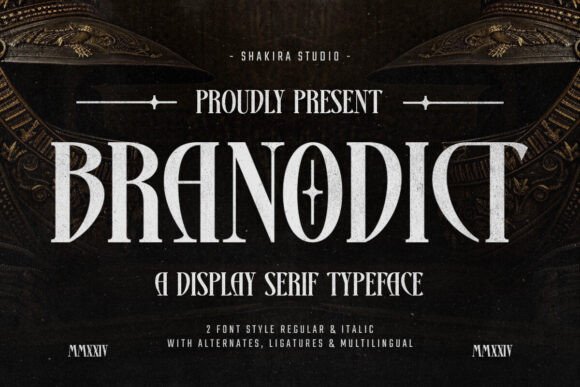
The Power of Branodict: Elevate Your Brand with a Modern Display Serif Font
I’ll never forget the struggle I faced while working on a branding project for a luxury fashion client. The goal was to create a logo that exuded elegance, sophistication, and a touch of modernity. As I scrolled through countless font options, I felt like I was stuck in a never-ending loop of sameness. That was until I stumbled upon Branodict, a game-changing display serif font that instantly captured the essence of my client’s vision.
A First Impression: What Makes Branodict Special
Branodict is more than just a font – it’s a statement piece. This commanding display serif merges contemporary sharpness with classic elegance, making it perfect for creating striking logos, memorable branding, and sophisticated packaging designs. With both regular and italic versions, plus premium alternates and ligatures, Branodict offers unparalleled versatility for brands seeking authority and prestige.
So, what makes Branodict shine? Here are a few things I love:
- ✨ Unmatched versatility: With its bold serif structure and refined italic variant, Branodict adapts seamlessly to various design contexts.
- ✅ Elegant alternates and ligatures: These premium features enable distinctive wordmark creation with perfect typographic harmony.
- 💡 Effortless sophistication: Branodict’s classic elegance instantly elevates any design, making it perfect for luxury brands and high-end products.
And, like any font, it’s not without its quirks:
- 🤔 Occasional kerning issues: As with any font, some manual kerning adjustments might be necessary for optimal results.
- ⚠️ Limited use in body text: Branodict’s bold serif structure makes it better suited for display purposes, rather than lengthy passages of text.
The Story Behind Branodict: Designer Inspiration
Branodict’s creation was inspired by the works of classic typographers, who sought to merge traditional elegance with modern sophistication. The font’s designer aimed to craft a typeface that would not only command attention but also exude a sense of refinement and luxury. Through careful attention to detail and a passion for typography, Branodict was born – a font that embodies the perfect balance of modern edge and timeless sophistication.
| What makes Branodict suitable for luxury brands? | Branodict’s classic elegance, sophisticated alternates, and premium ligatures make it an ideal choice for luxury brands seeking to convey refinement and prestige. |
| Can I use Branodict for body text? | While Branodict is primarily designed for display purposes, it can be used for short passages of text. However, its bold serif structure may not be optimal for lengthy body text. |
| Is Branodict available in multiple weights? | Branodict comes in regular and italic versions, providing a range of options for designers. However, it does not have multiple weights. |